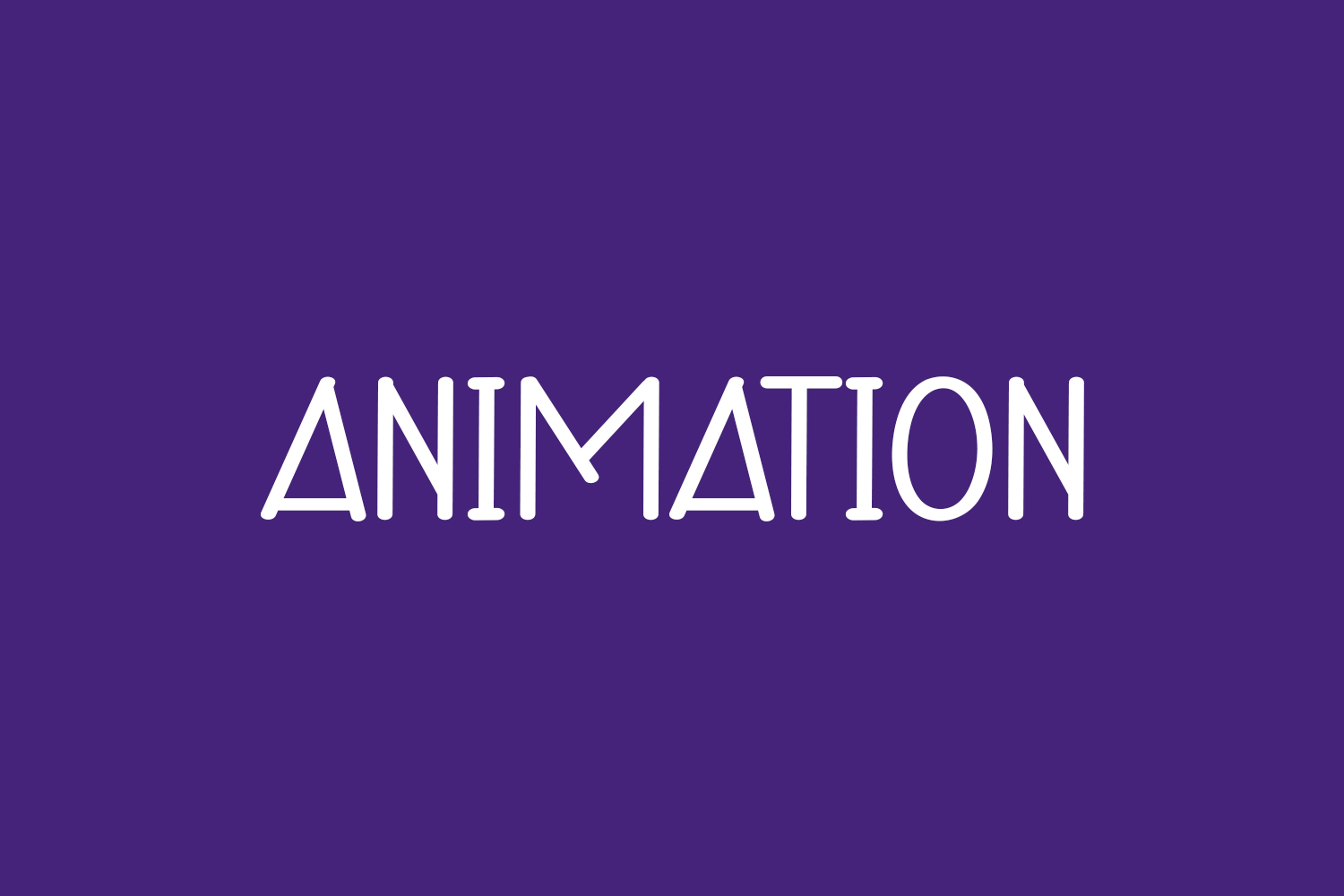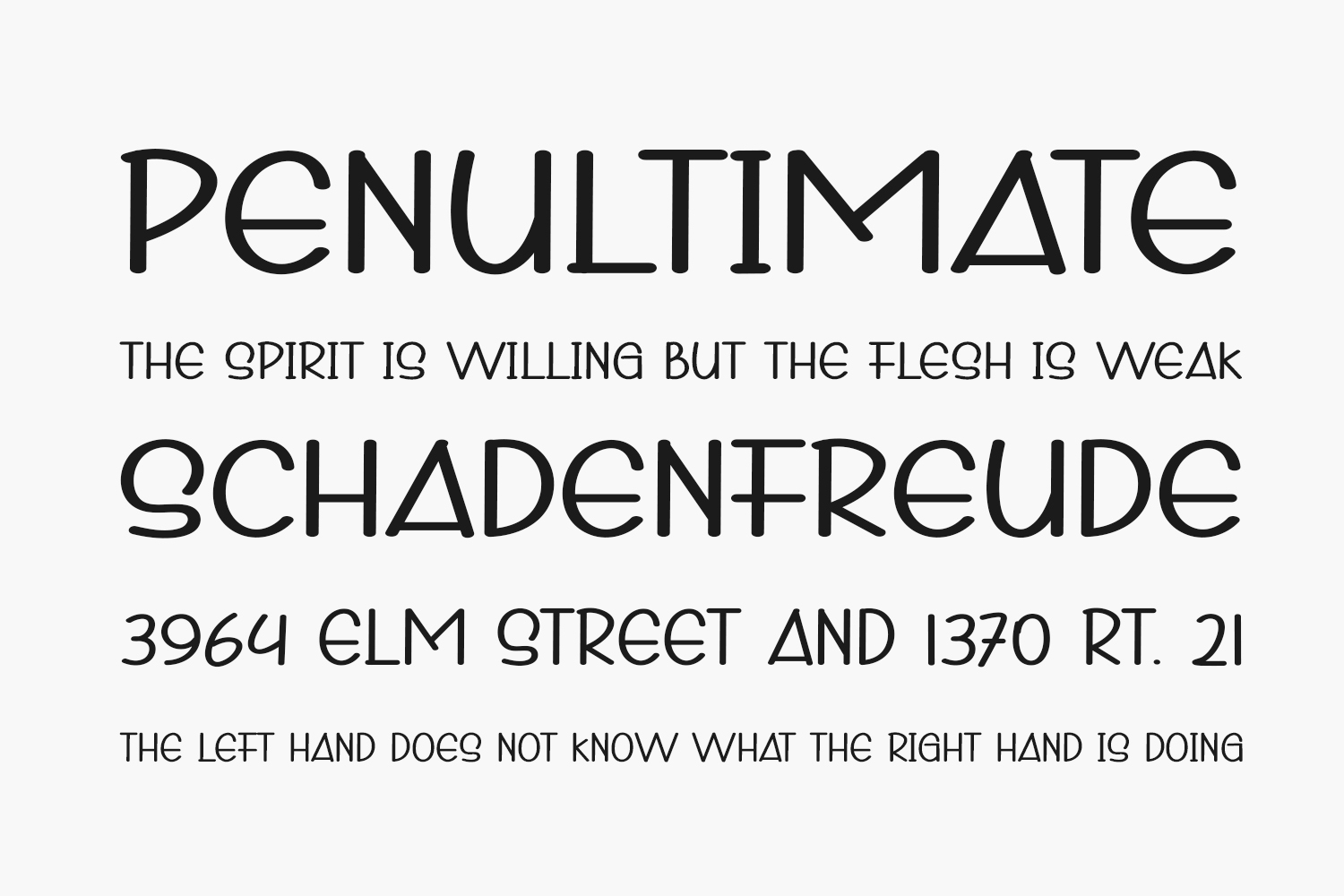
Animation is a bold and expressive handwritten font designed by Etik Fatimah with lively strokes and strong character. This free font is specially crafted for animated titles, movie credits, digital illustrations, and other creative projects that require a playful yet professional look. With its energetic style and high readability at large sizes, Animation works perfectly in motion graphics, cartoon design, and title sequences. Available in OTF format with support for Latin characters — ideal for personal and commercial use.
Why Choose Animation?
- Dynamic Handwriting Style: Designed with movement and energy, perfect for animated and illustrative content.
- Ideal for Motion Graphics: Great for film titles, YouTube intros, cartoons, and digital animation projects.
Where to Use Animation Font?
Animation shines in visually engaging and entertainment-focused design projects:
- Motion Graphics & Titles: Perfect for animated films, explainer videos, or YouTube thumbnails.
- Cartoon & Game Design: Adds personality to character names, subtitles, or in-game UI elements.
- Digital Illustrations: Ideal for comic book lettering, children’s book covers, and storyboards.
- Social Media Posts: Creates bold text overlays for TikTok, Instagram Reels, and Facebook videos.
- Creative Logos & Branding: Brings life to brand identities of studios, animation houses, or kids’ product lines.
Design Tips with Animation
To get the most from Animation Font, pair it with simple sans-serif fonts like Fair Belongings or Open Sans for contrast and clarity. Use this font in large sizes to highlight its expressive nature in video titles or posters. For animated use, combine with soft gradients or glowing effects to enhance its playful style. Try our interactive font preview tool below to test Animation with your own text before downloading!